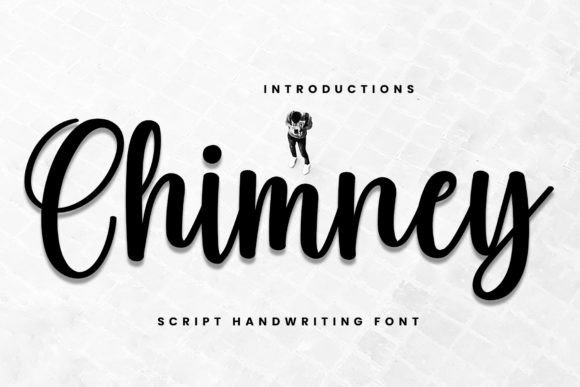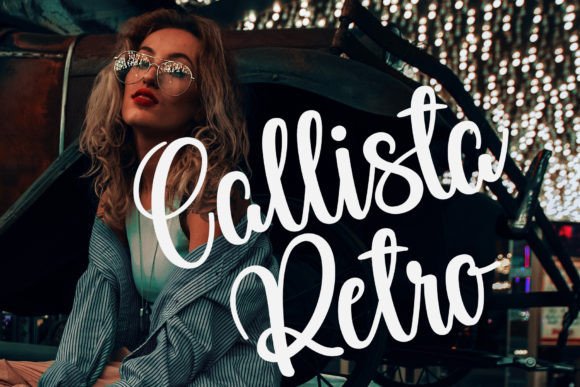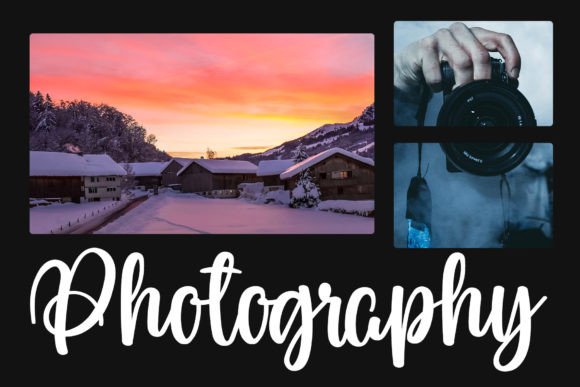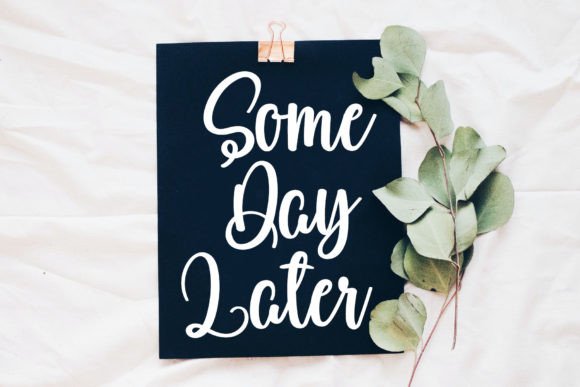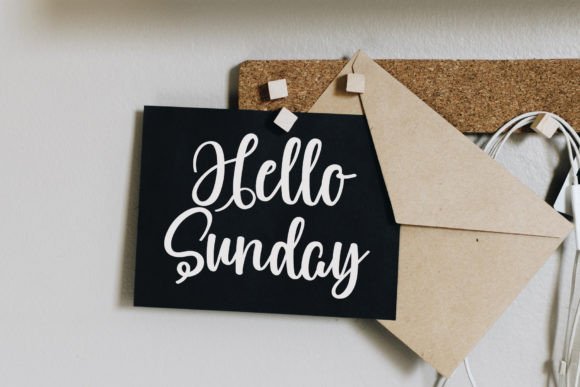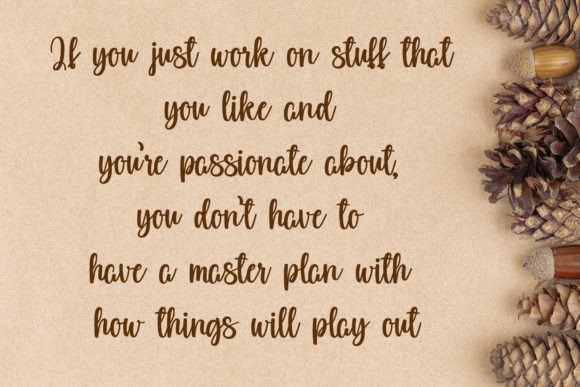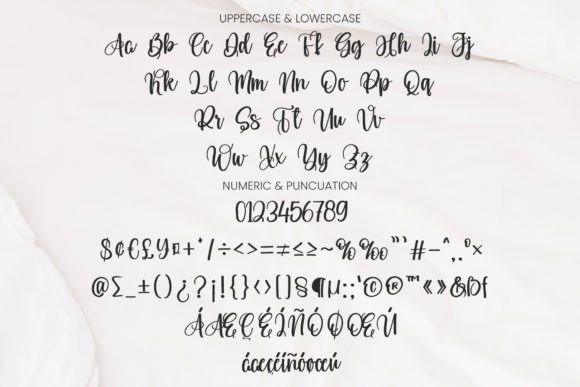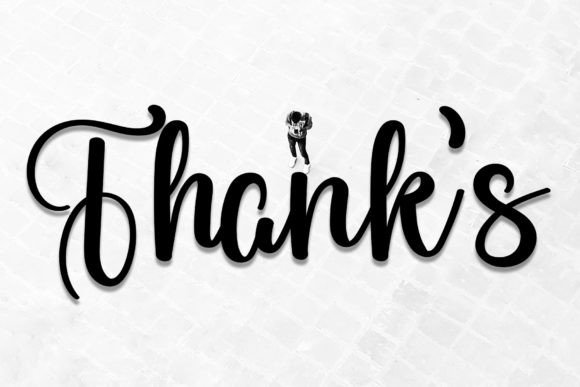
Chimney Font
About Chimney Font
Chimney is not just a font; it’s a stylish and dainty script that adds an elegant touch to your designs. Whether you’re working on logos, branding projects, labels, photography, watermarks, special events, or any other lovely project that requires a beautiful script, Chimney brings a sophisticated aesthetic.
The stylish and dainty nature of Chimney is evident in its script design. The characters are crafted with precision and elegance, making it a standout choice for projects that demand a refined and graceful appearance. Whether you’re designing a logo or creating a watermark, Chimney ensures that your designs exude a sense of style and sophistication.
In branding projects, Chimney becomes a perfect choice for those seeking a touch of elegance. The script adds a layer of sophistication that makes your brand stand out, creating a memorable and visually appealing identity.
For labels and photography, Chimney’s stylish script adds a timeless charm. The elegant characters turn your text into visually striking elements, enhancing the overall aesthetic and conveying a sense of beauty and grace.
By including Chimney in your font collection, you’re not just adding a typeface; you’re selecting a design element that elevates your projects. Chimney is designed to bring a stylish and dainty quality to your creative endeavors.
In essence, Chimney is a font that goes beyond being a tool. It’s an expression of stylish and dainty script charm that transforms your logos, branding, and creative projects into visually stunning and refined works of art.